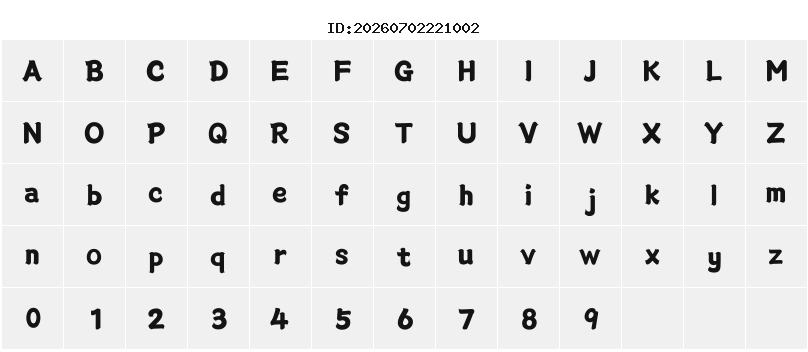
092-上首虎啸体 Preview
• Font Name: 092-上首虎啸体
• Font ID: 092-SSHuXiaoTi:Version 4.00
• Full Font Name: 092-上首虎啸体
• Version: Version 4.00 November 7, 2022
• PostScript Name: 092-SSHuXiaoTi
• Manufacturer: 上首造字
About 092-上首虎啸体.ttf
092-上首虎啸体.ttf is a modern, elegant sans-serif font designed for ultimate readability and visual harmony. Perfect for branding, headlines, web design, and print materials.